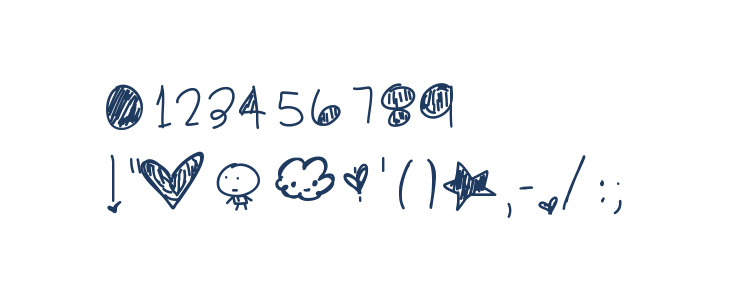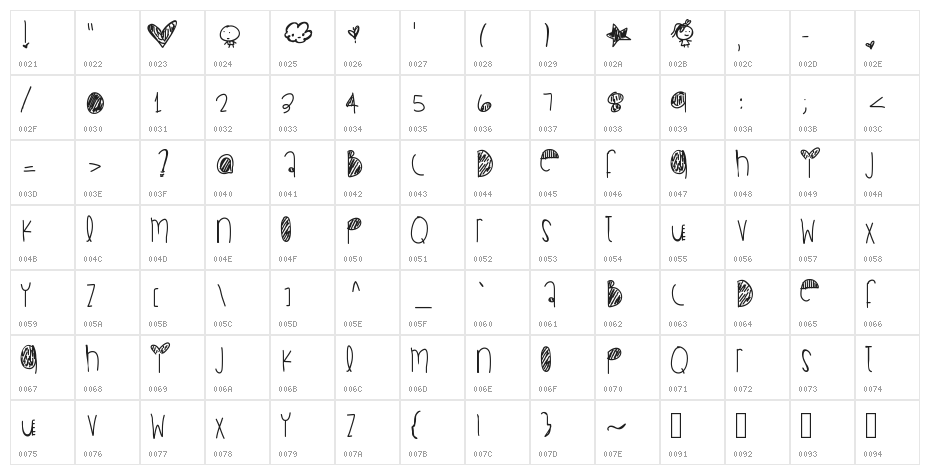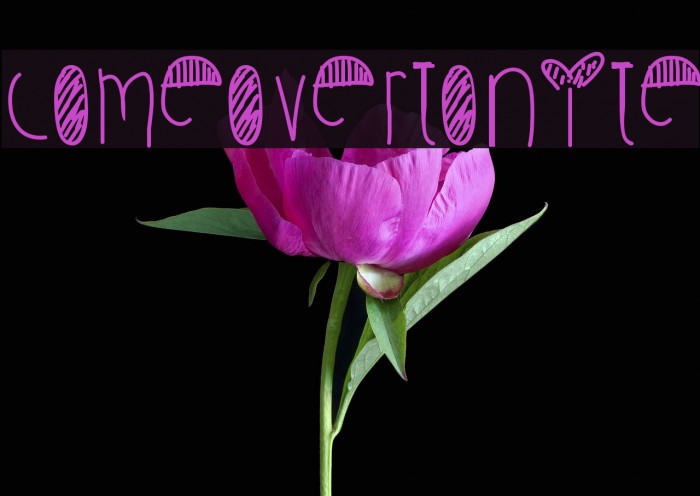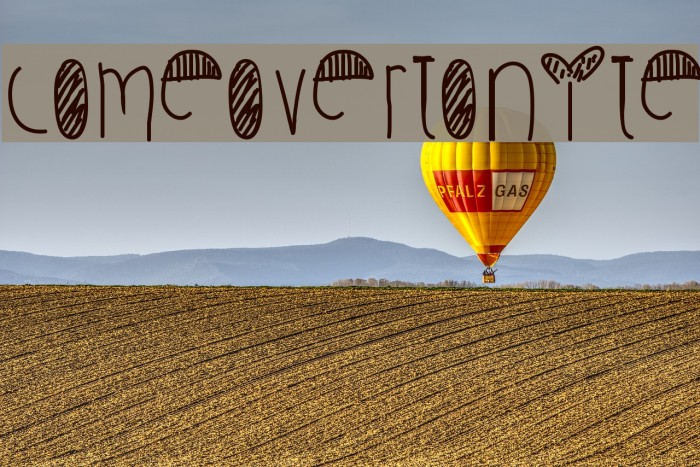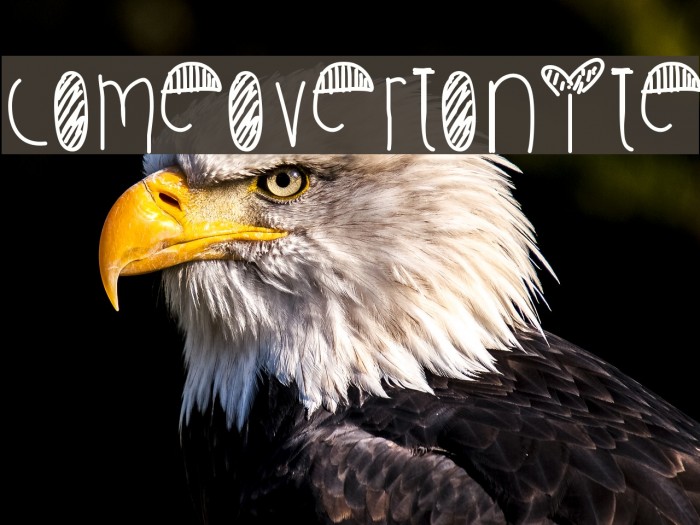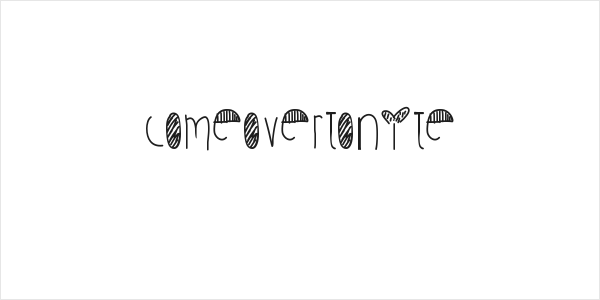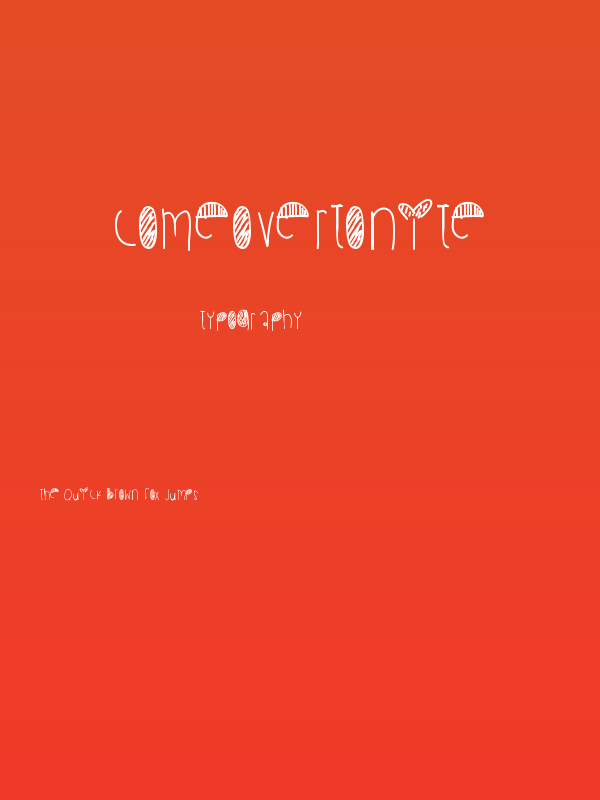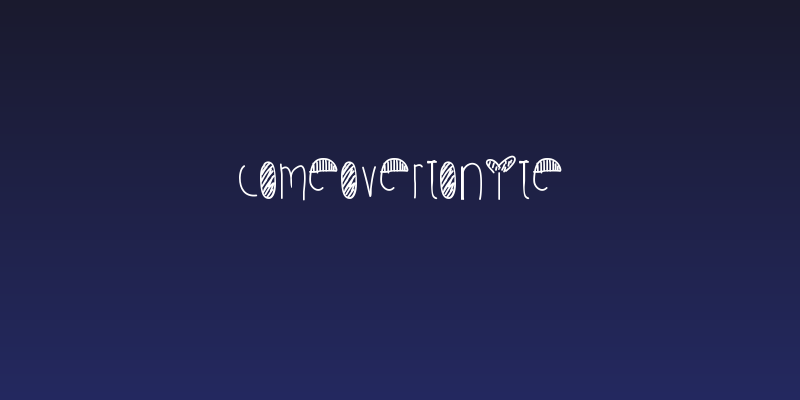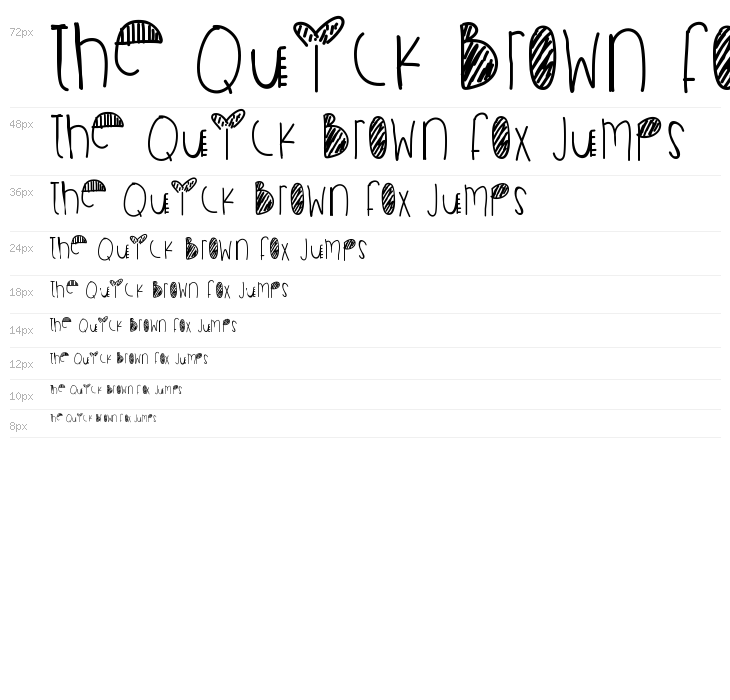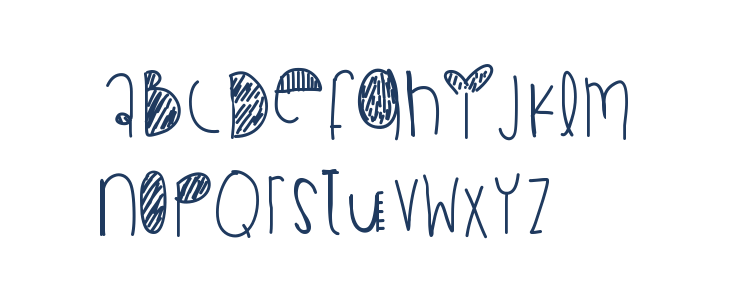
ComeOverTonite Font
This playful and whimsical font features a hand-drawn style with a casual, informal appearance. The letters are characterized by uneven strokes and a mix of thick and thin lines, giving it a dynamic and lively feel. The uppercase and lowercase letters maintain a consistent style, with quirky elements such as hearts and dots integrated into some characters. The numbers and special characters follow the same playful theme, adding a touch of creativity and fun. This font is ideal for projects that require a personal, artistic touch, such as children's books, greeting cards, or creative branding.
| Overall Style | Whimsical, Playful, Artistic |
| Use Case | Headlines, Creative projects, Informal designs |
| Proposed Projects | Children's books, greeting cards, creative branding, posters, and social media graphics. |